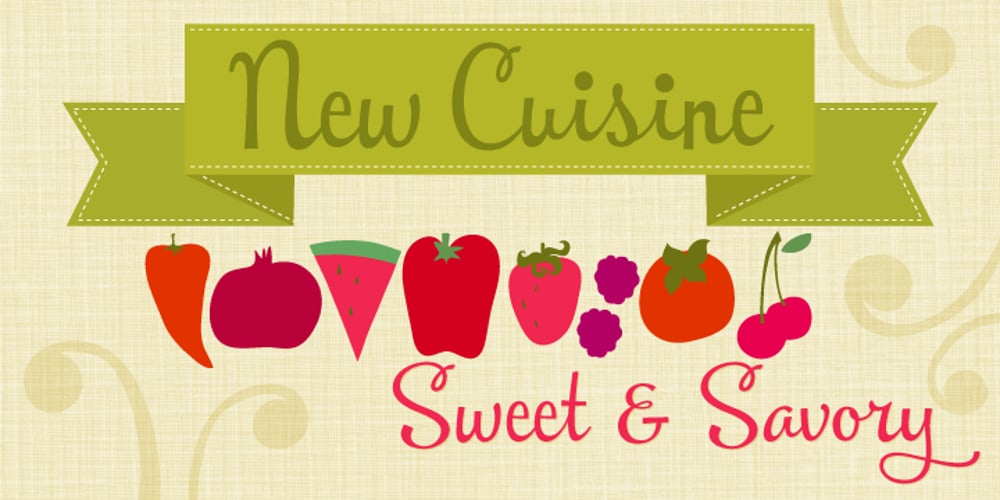
New Cuisine Font Family was designed by Stephen W. Rapp and published by Stephen Rapp. New Cuisine contains 1 styles and family package options. New Cuisine is a departure from formal, handwriting, and retro scripts. Influenced by the DIY lettering generation New Cuisine is a joyful looking script with all the right moves. Its bold graphic presence makes it ideal for packaging, online journals and blogs, signage, logos, and menus. Under the hood of New Cuisine lie precise connections, unique ligatures and alternates, and OpenType programming to orchestrate it all. Because of this, typesetting turns into a simple and playful experience. Also included are a simple fraction feature as well as Central European language support.